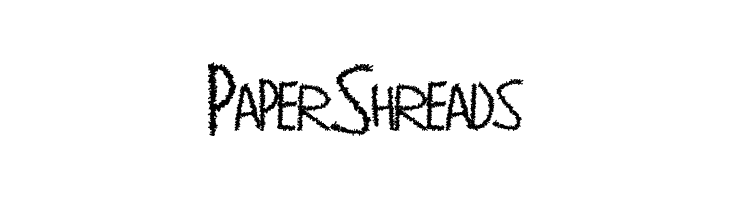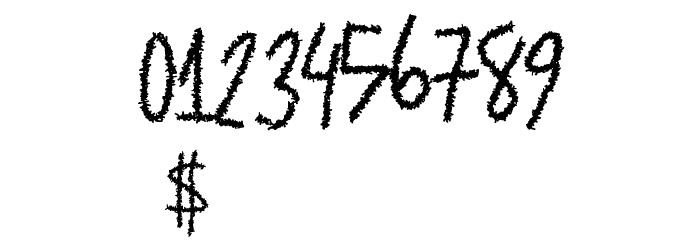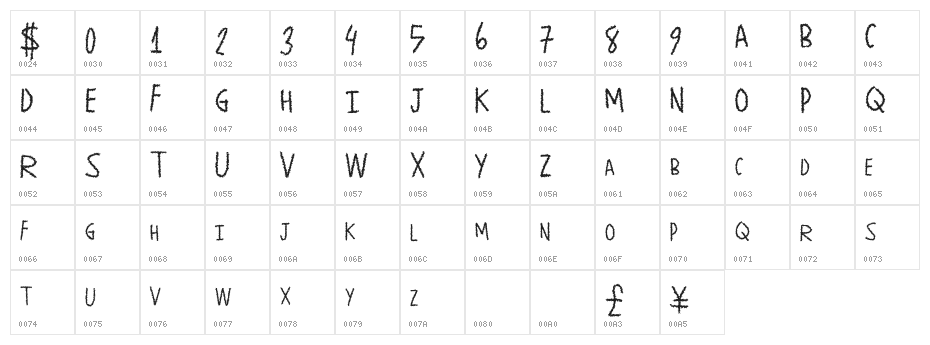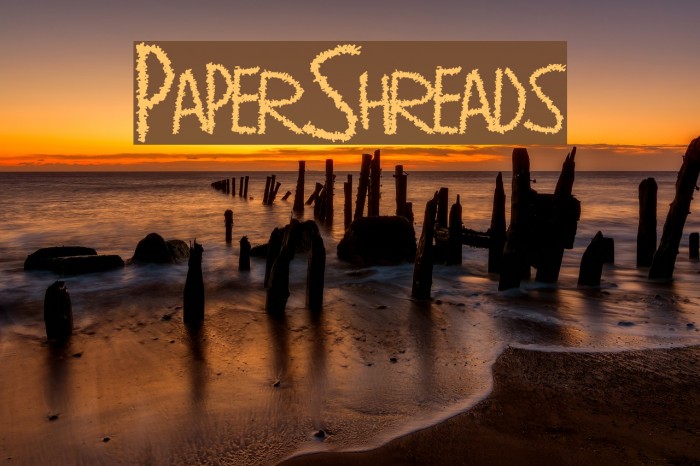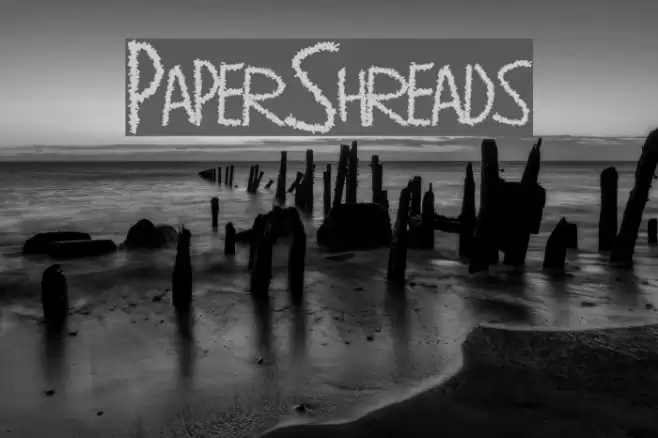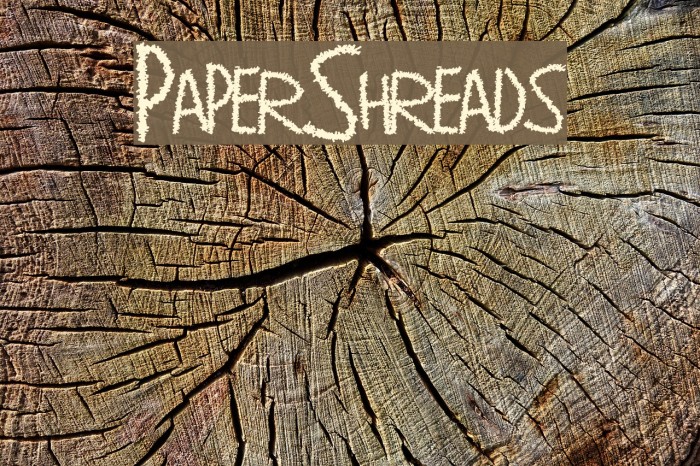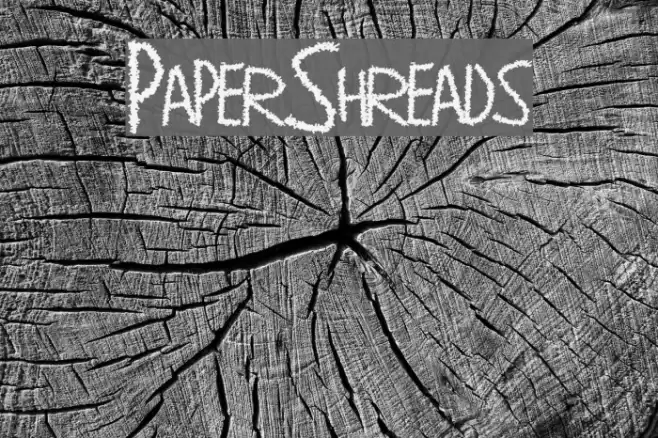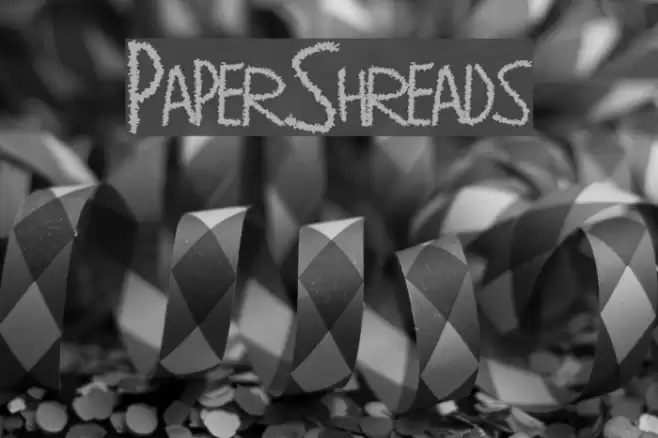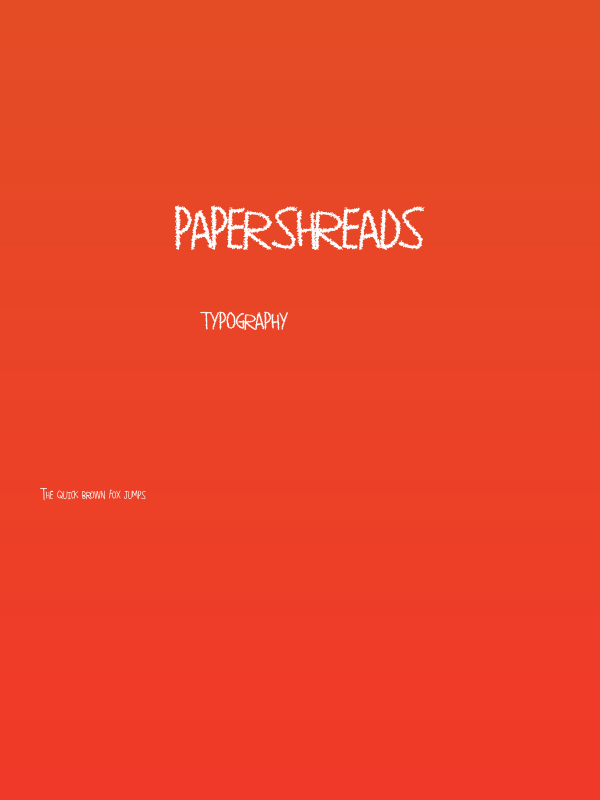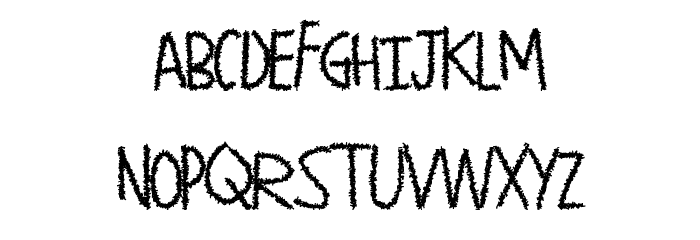
PaperShreads Font
PaperShreads Description
This font features a unique, textured appearance reminiscent of shredded paper or rough sketches. The characters are irregular and jagged, giving a dynamic and edgy feel. The uppercase and lowercase letters maintain a consistent style, with a playful yet slightly chaotic look. Numbers and special characters follow the same design, ensuring uniformity across all glyphs. The font's distinctive style makes it stand out, ideal for projects that require a bold and unconventional aesthetic.